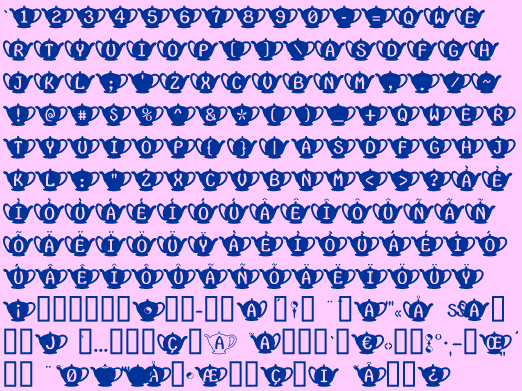
The letters were developed in designing Bowling, and this was an attempt to get a bit more use from them. They appear as just letters in InsideLetters.